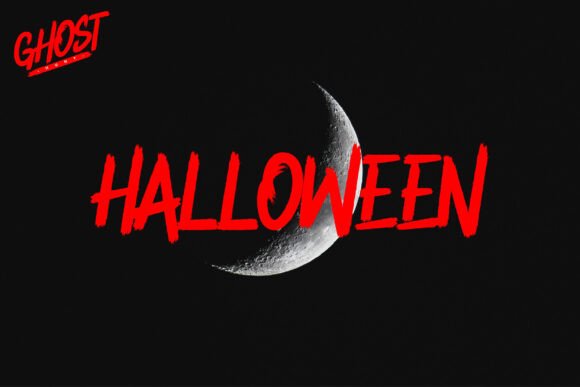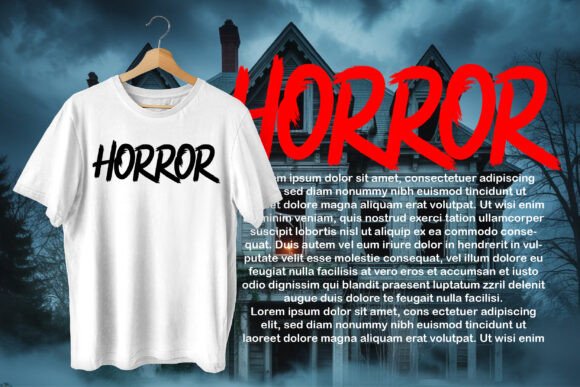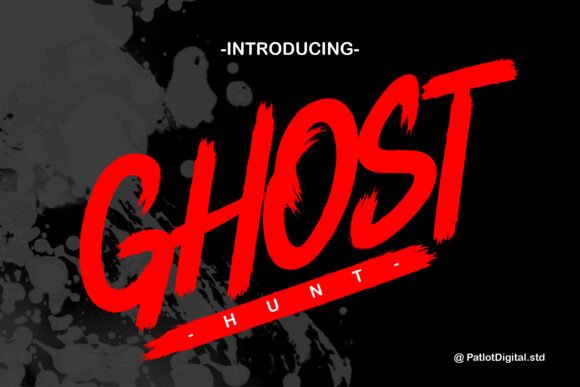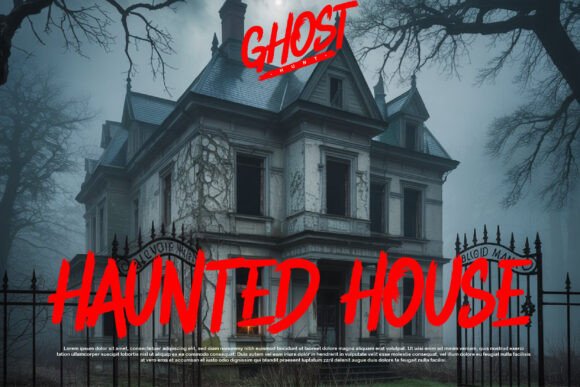
Ghost Hunt Font
About the Ghost Hunt Font
The wait is over! The incredible Ghost Hunt Font is now available for your design toolkit. Introducing Ghost Hunt- an artistically designed Brush Display font. Drawing inspiration from the dark depths of gothic influences, and the chilling corners of horror-themed media, this font is your spooky design solution. Splattered with a unique hand-drawn brush appeal, Ghost Hunt carries an undeniably instant and endearing messy aesthetic. Tailored strikingly to cater to your eerie and Halloween-centric desires, this font effortlessly defines spine-chilling style. Envision it breathing an uncanny edge into your wardrobes and printed apparel, or lending a hair-raising effect to your book cover designs. Picture your Halloween revelries, greeting cards, stickers, posters and banners soak in its eerie charm. Expose your design projects to Ghost Hunt and experience the thrilling rush of horror and Halloween sensations envelop your creations.